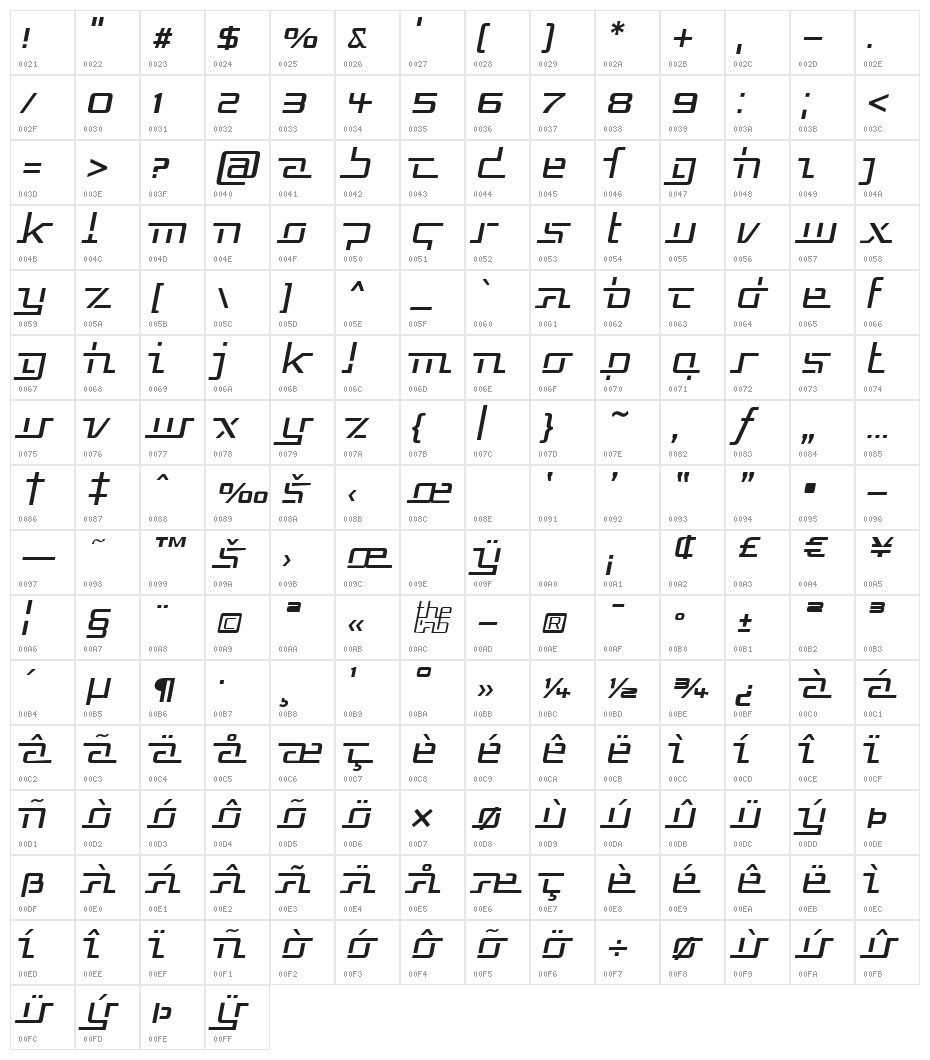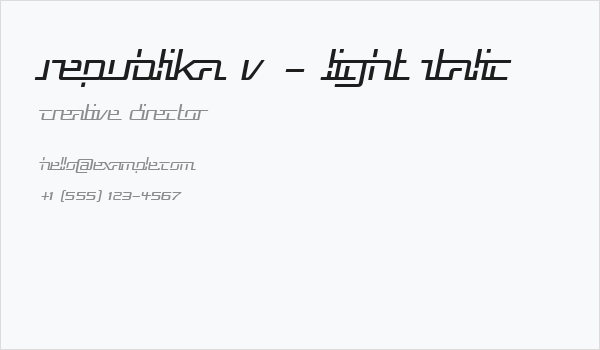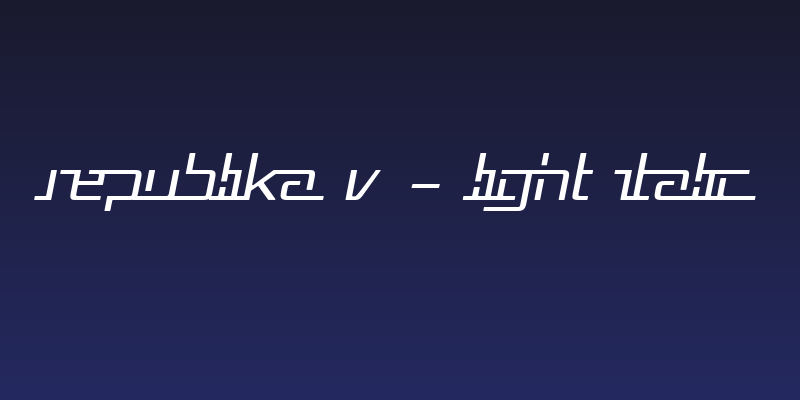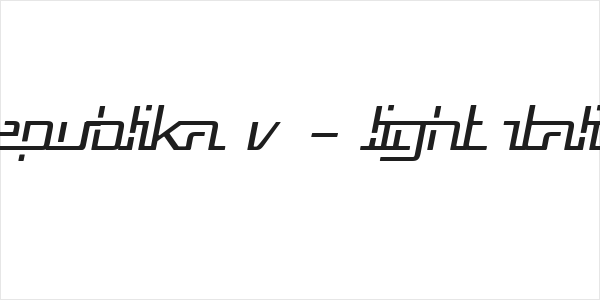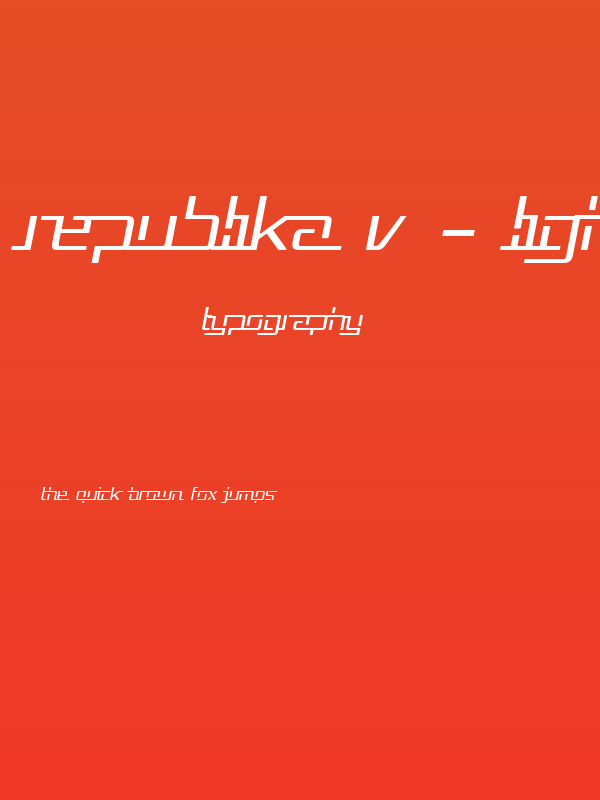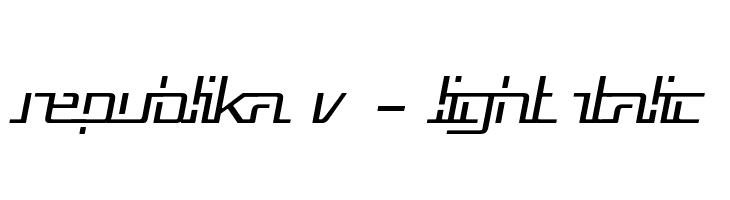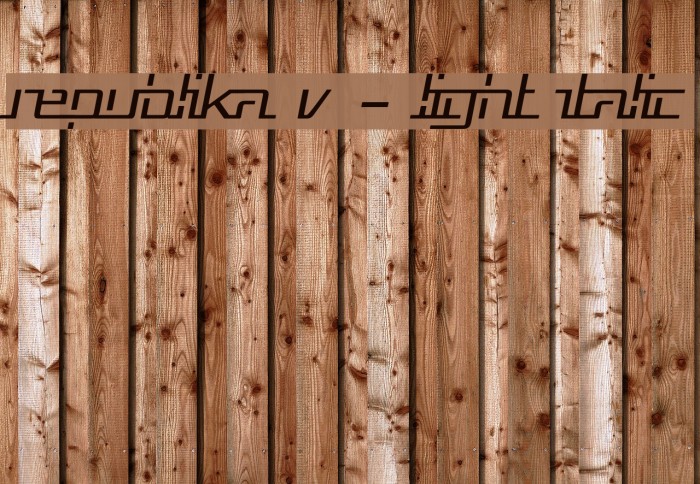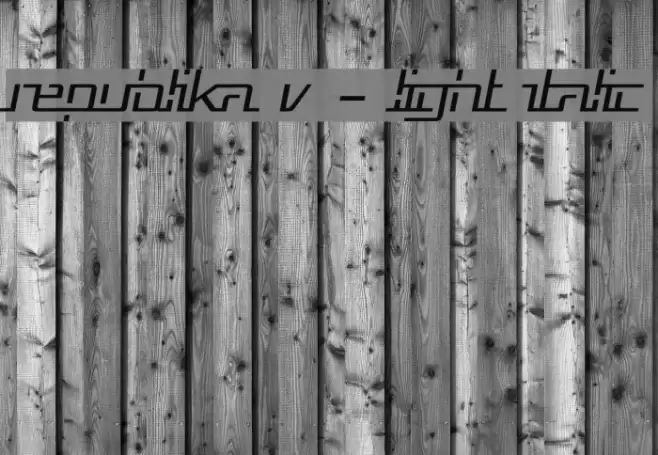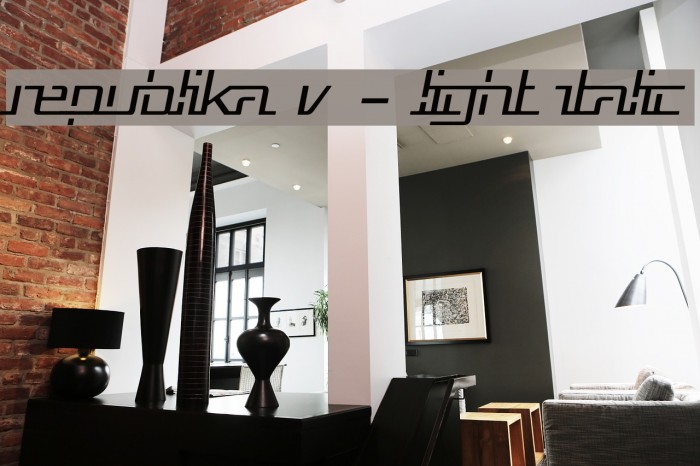
Republika V - Light Italic Font
Republika V - Light Italic Description
This font features a futuristic and geometric design, characterized by its angular and streamlined letterforms. The characters are constructed with a consistent stroke width, giving it a uniform appearance. The italic style adds a dynamic and forward-leaning aspect, enhancing its modern aesthetic. Each letter is distinct, with sharp edges and a mechanical feel, making it suitable for technology-themed projects. The spacing between characters is tight, contributing to its compact and efficient look. The numerals and special characters maintain the same stylistic approach, ensuring consistency across all glyphs.
| Overall Style | Futuristic |
| Use Case | Logos, Headlines, Digital interfaces |
| Proposed Projects | Ideal for technology branding, sci-fi posters, video game interfaces, and modern digital designs. |